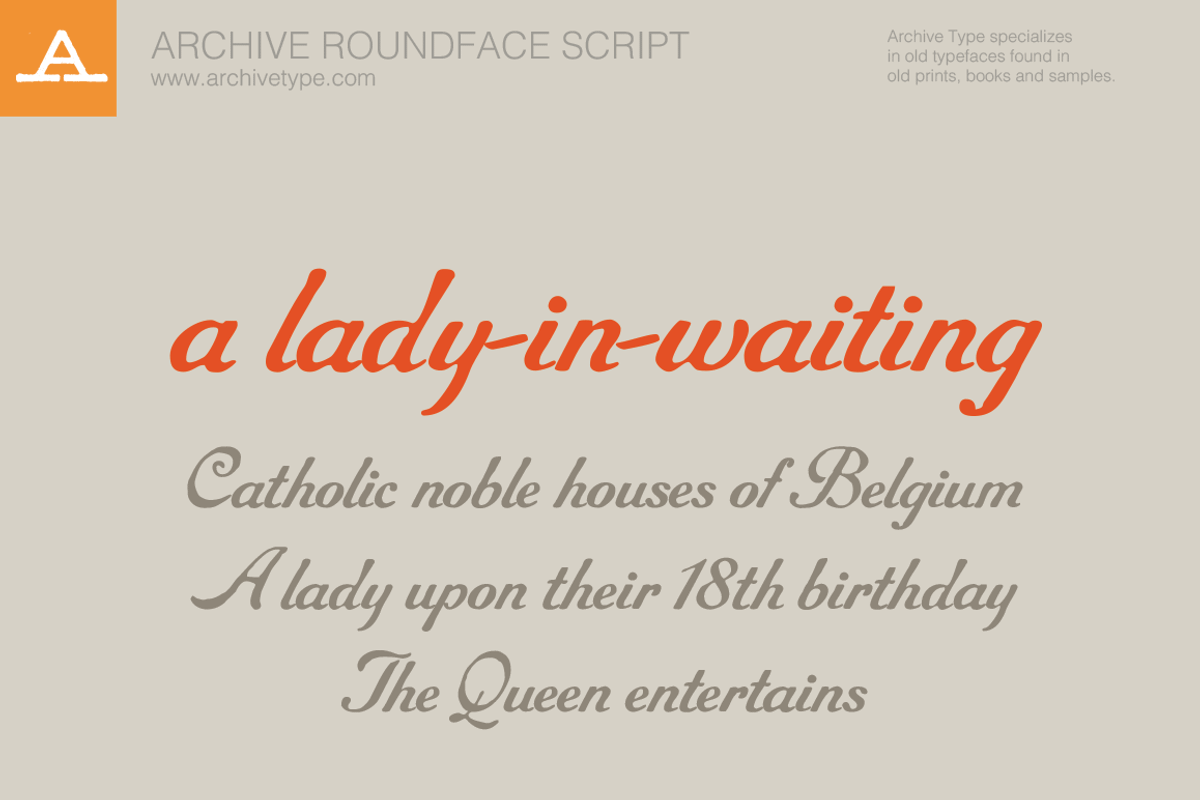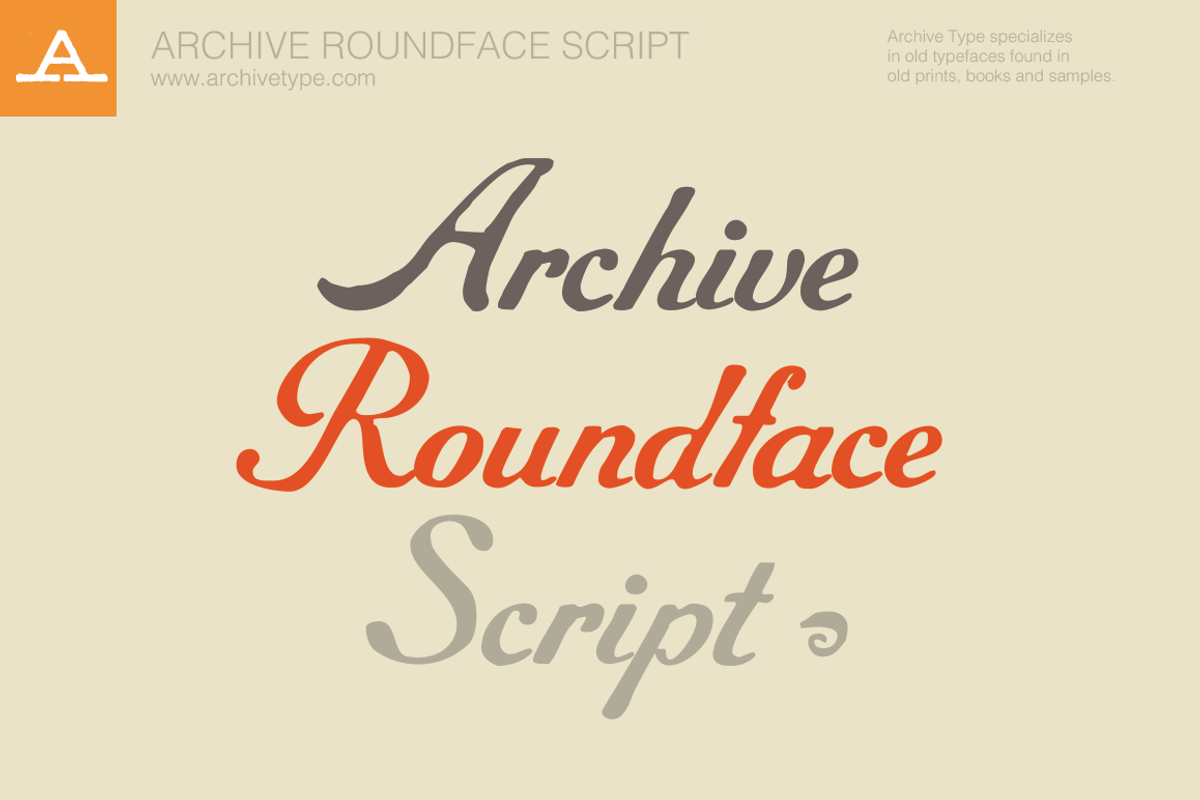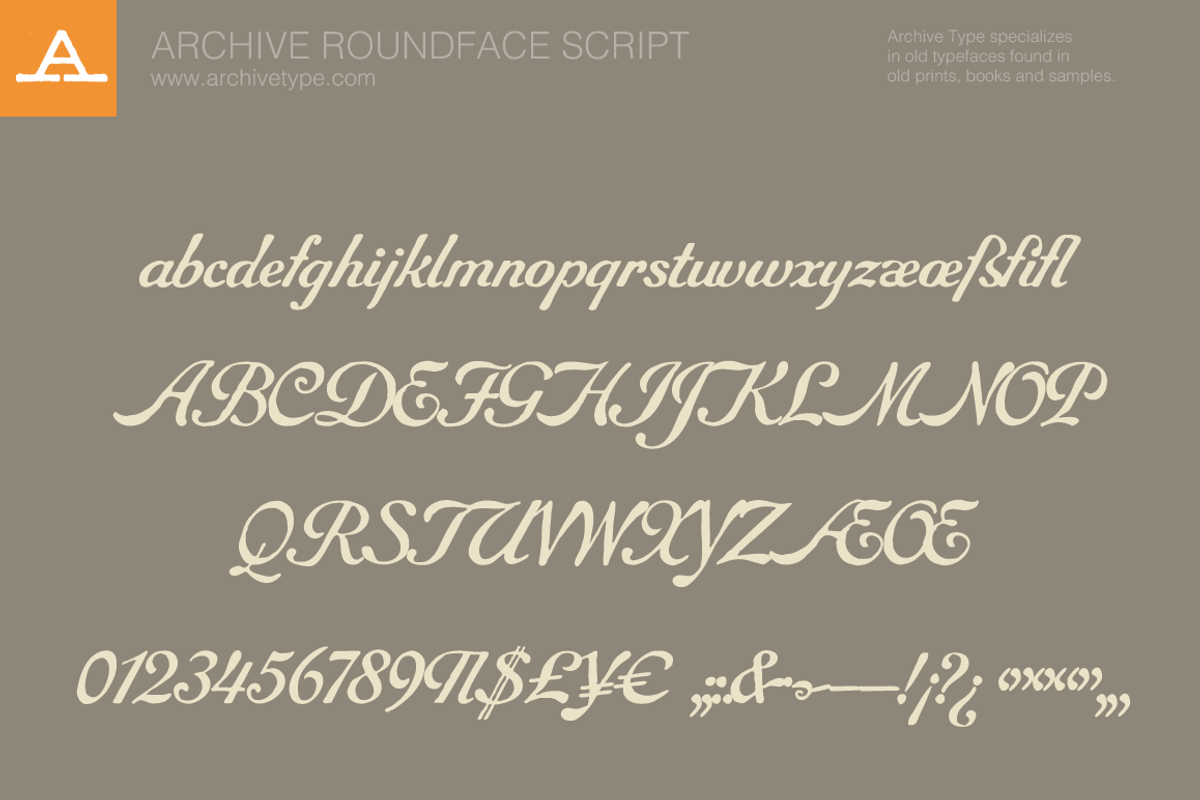
Archive Roundface Script
Archive Roundface Script by Archive Type Fonts is a font selected for branding, posters, packaging, typography.
- In order to preserve the original feel of typefaces, no additional characters were added to originals therefore most of fonts consist just o
- Upper case letters, lower case letters, numerals and basic punctuation.
Why Archive Roundface Script is worth a look
Archive Roundface Script by Archive Type Fonts fits naturally into Branding, posters, packaging, typography.